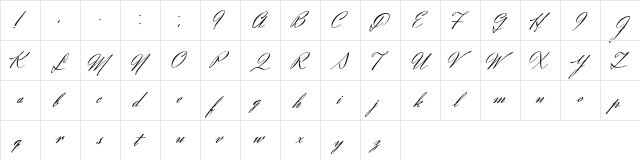
Eliensee Regular
Design Context for Eliensee Typeface
Eliensee is a composed and adaptable typeface that performs quietly and consistently across a wide range of design contexts.